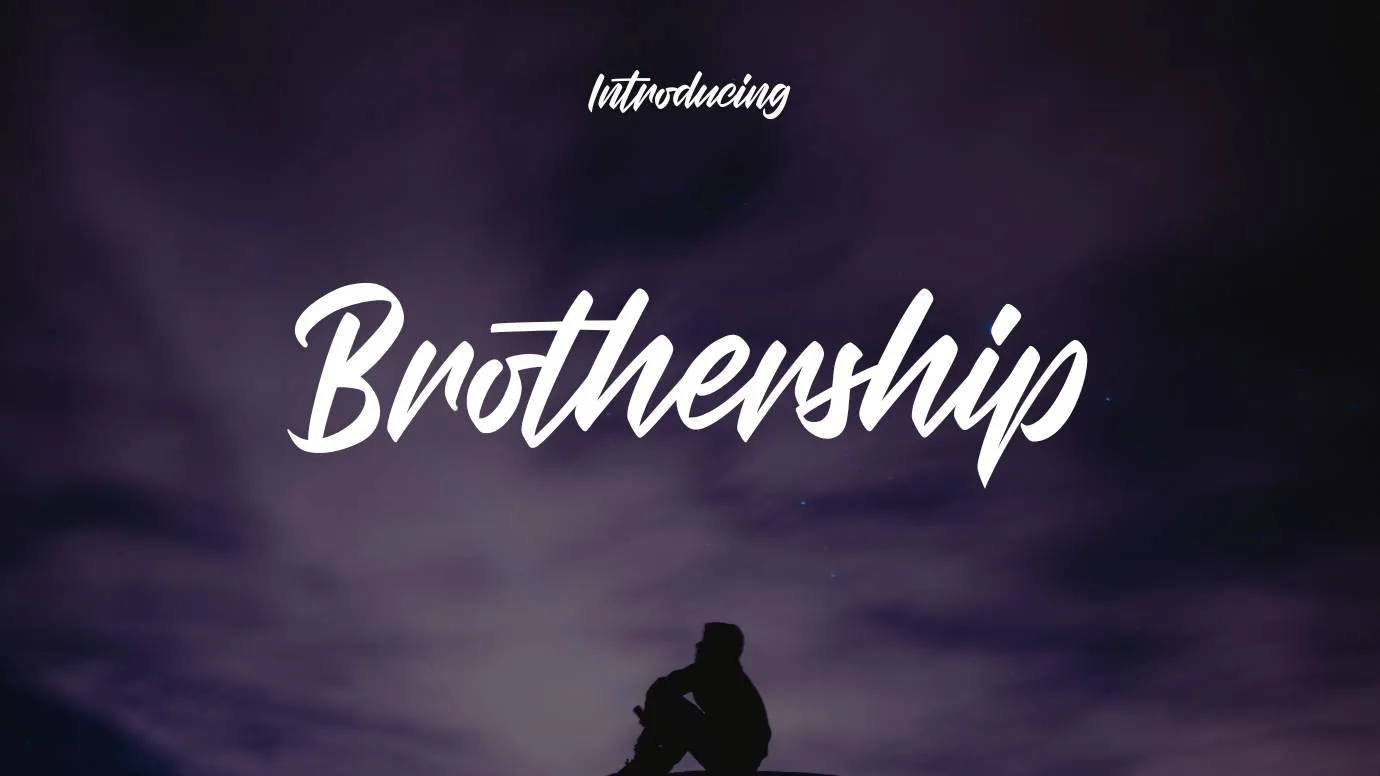
Brothership Font Family has classic texture falls in the category of the bold script family of fonts. Ahmad Ramzi Fahruddin is the brilliant mind designer behind the creation of this typeface and it was finally published by Arterfak Project.
The brush script style of this typeface is very attractive and classic among designers. Here, Bernadette font looks like this font and is similar to this family.
Brothership Font